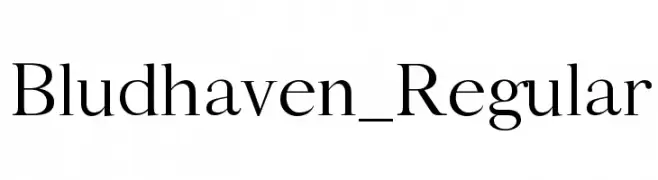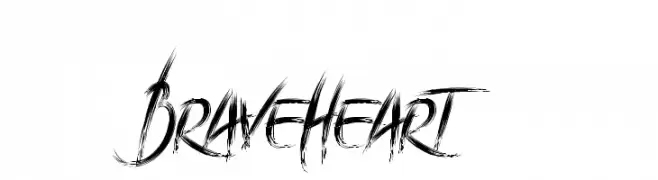
A futuristic font with gradient-like horizontal lines and geometric structure.
A geometric, crystal-like font with a three-dimensional, decorative style.
A bold, decorative font with a futuristic style and unique star motifs.
A futuristic, angular font with outlined characters and an italic style.
A bold, geometric font with sharp angles and unique cutouts.
A playful, hand-drawn font with bold, irregular characters and a whimsical style.
A classic serif font with elegant curves and refined style.
A bold, geometric stencil font with rounded shapes and a modern aesthetic.
A dynamic, brush-textured font with sharp, angular strokes and a bold, artistic style.
An elegant script font with flowing lines and sophisticated style.